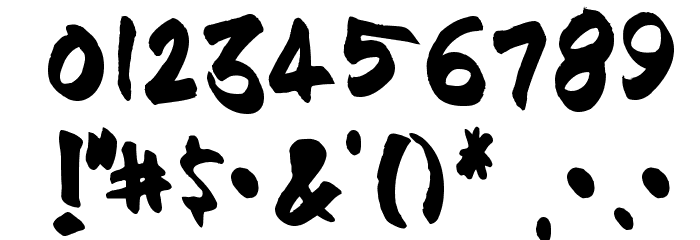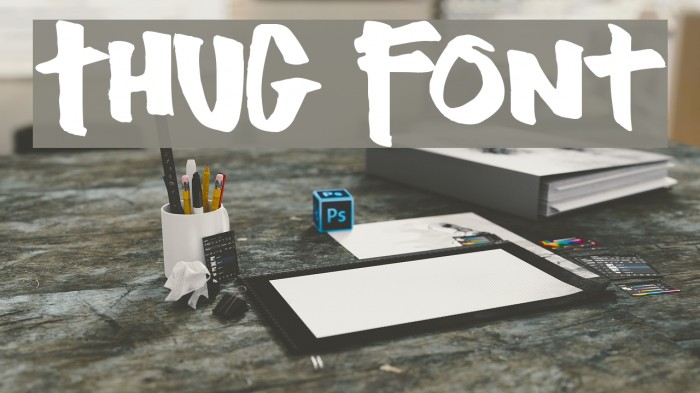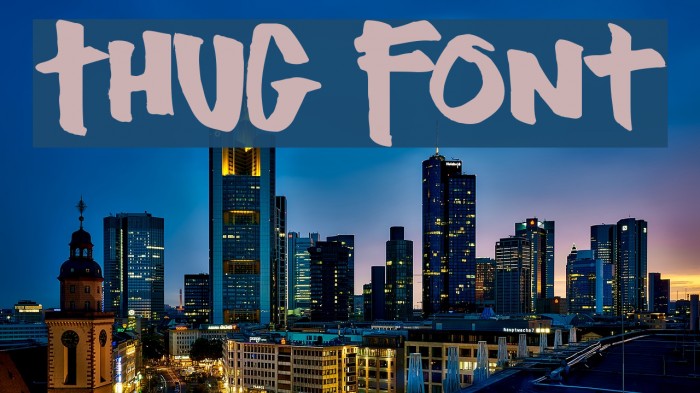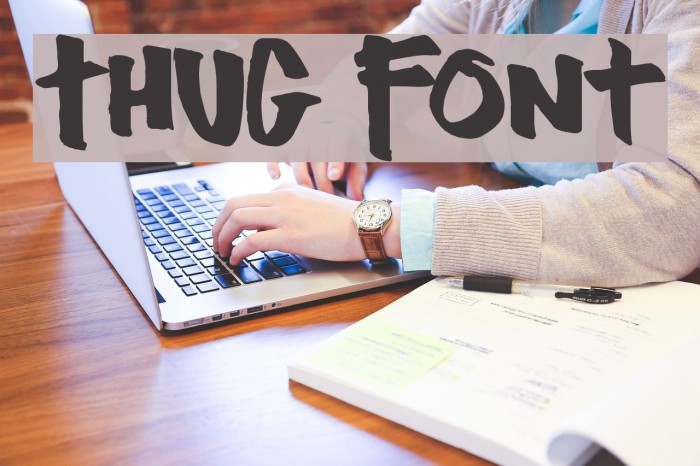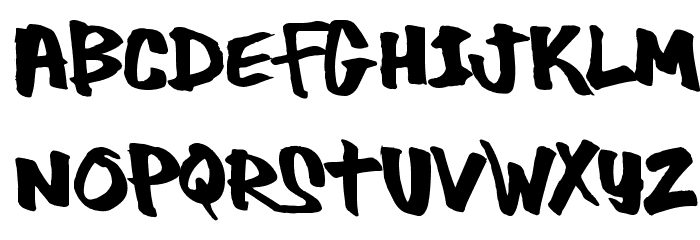
Thug Font
This font exudes a bold and rebellious style, characterized by its thick, brush-like strokes and uneven edges. The letters have a dynamic, hand-drawn appearance, giving them a raw and energetic feel. The uppercase and lowercase letters maintain a consistent style, with a slight slant that adds to the font's edgy personality. The numbers and special characters follow the same aesthetic, ensuring a cohesive look across all elements. This font is perfect for projects that require a strong, impactful visual presence.
| Use Case | Logos, Headlines, Posters |
| Proposed Projects | Ideal for streetwear branding, music album covers, graffiti art, and edgy poster designs. |